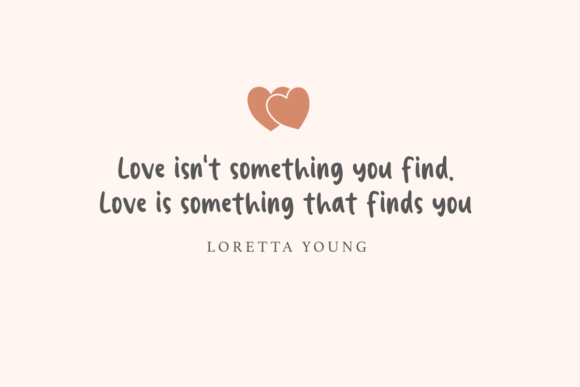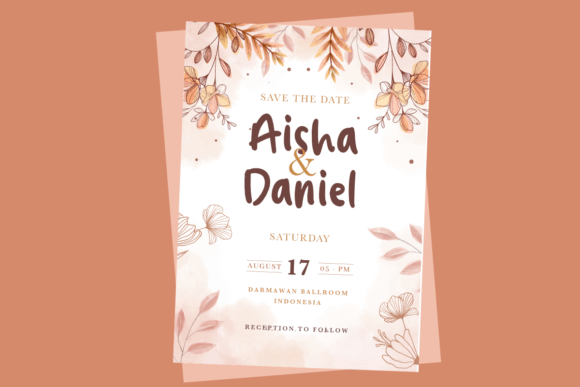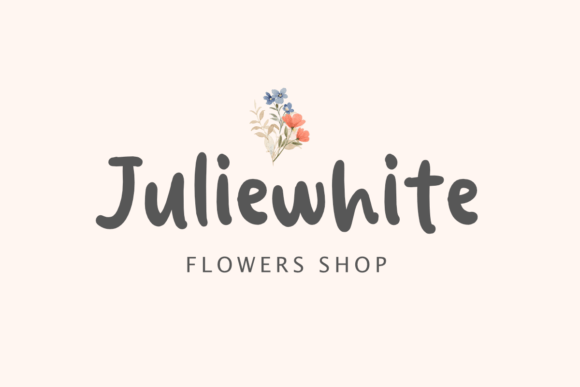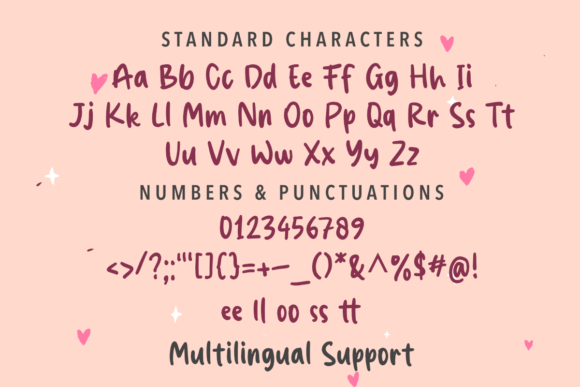
Introducing Angella Dreams: The Whimsical Font that Brings Joy to Your Designs
Have you ever been in the middle of a design project, pouring your heart and soul into it, only to realize that something is missing? You’re not quite sure what it is, but you know it’s not quite right. For me, that missing piece was a font that could capture the essence of whimsy and femininity. That’s when I discovered Angella Dreams, a delightful hand-drawn font that has become my go-to for adding a touch of magic to my designs.
A Personal Design Moment: Finding the Perfect Font
I was working on a project for a client who wanted a custom design for her new lifestyle brand. She wanted something that exuded elegance and sophistication, but also had a playful touch. I spent hours scouring the internet for the perfect font, but nothing seemed quite right. That was until I stumbled upon Angella Dreams. The moment I saw it, I knew it was the one. The font’s cute and playful style, combined with its distinct feminine characteristics, made it the perfect fit for my client’s brand.
What I Love About Angella Dreams ✨
- ✅ The font’s unique personality: Each character is meticulously crafted to showcase its own special charm.
- ✅ The perfect blend of whimsy and elegance: Angella Dreams strikes the perfect balance between playfulness and sophistication.
- ✅ Easy to read: Despite its playful style, the font is surprisingly easy to read, even at smaller sizes.
- ✅ Versatile: Angella Dreams is perfect for a wide range of design purposes, from magazines and quotes to branding and more.
- ⚠️ Limited availability of certain characters: Some special characters and glyphs are not available in the standard font set.
- ⚠️ May not be suitable for very formal designs: While Angella Dreams is elegant, it’s still a playful font and may not be the best choice for very formal or corporate designs.
- Make the most of OpenType features: Angella Dreams supports OpenType features like ligatures and stylistic alternates. Experiment with these features to add more personality to your design.
- Explore glyphs and stylistic alternates: Angella Dreams has a range of glyphs and stylistic alternates that can be accessed through the “Glyphs” panel in Illustrator or the “Character” panel in Photoshop.
Angella Dreams was designed by a talented font designer who wanted to create a font that captured the essence of whimsy and femininity. The designer drew inspiration from her own childhood, where she spent hours daydreaming and imagining magical worlds. The result is a font that’s both playful and elegant, perfect for adding a touch of magic to your designs.
| What is Angella Dreams? | Angella Dreams is a hand-drawn font designed to add a touch of whimsy and femininity to your designs. |
| Does Angella Dreams support OpenType features? | Yes, Angella Dreams supports OpenType features like ligatures and stylistic alternates. |